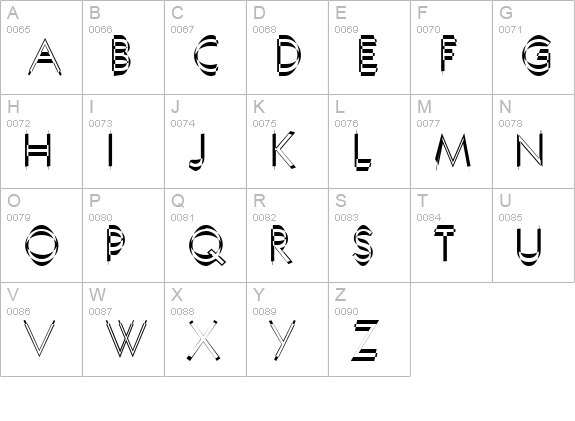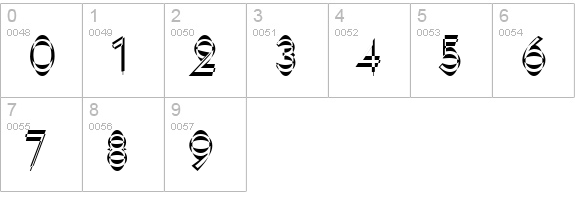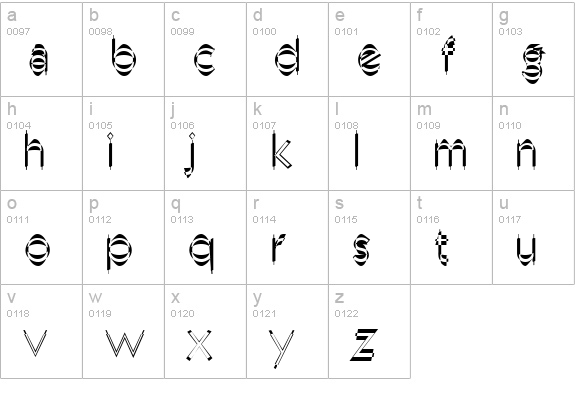
Neboman Font Details
Introducing Neboman font, a modern and stylish typeface designed to make a bold statement. With its unique blend of sharp edges and smooth curves, Neboman exudes a sense of sophistication and creativity. This versatile font is perfect for a wide range of design projects, from branding to editorial design. What sets Neboman apart is not only its sleek aesthetic but also the fact that it is available for free download at FontsMarket.com. Yes, you heard that right – this high-quality font can be yours at no cost, making it the ideal choice for designers looking to elevate their work without breaking the bank. Whether you're creating a logo, poster, website, or any other design project, Neboman font will help you stand out from the crowd with its contemporary flair and professional finish. Download Neboman today and unleash your creativity with this exceptional typeface!